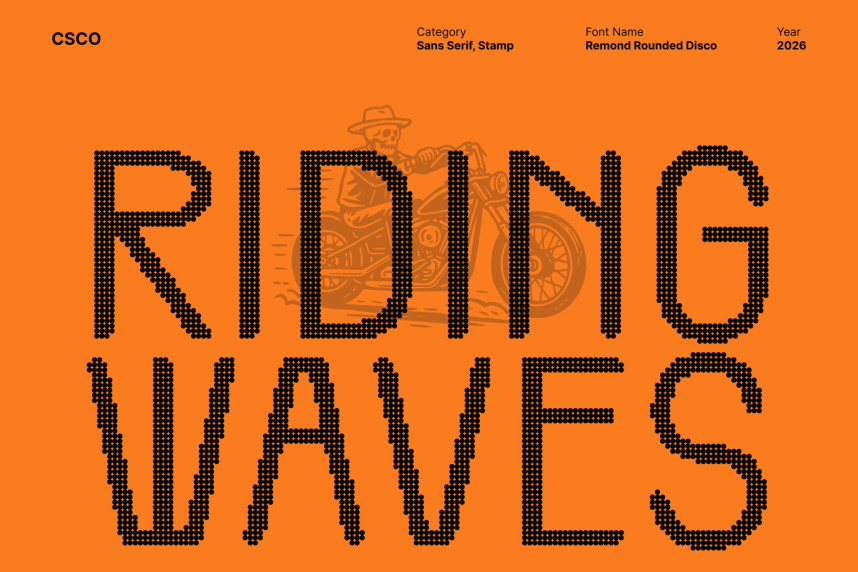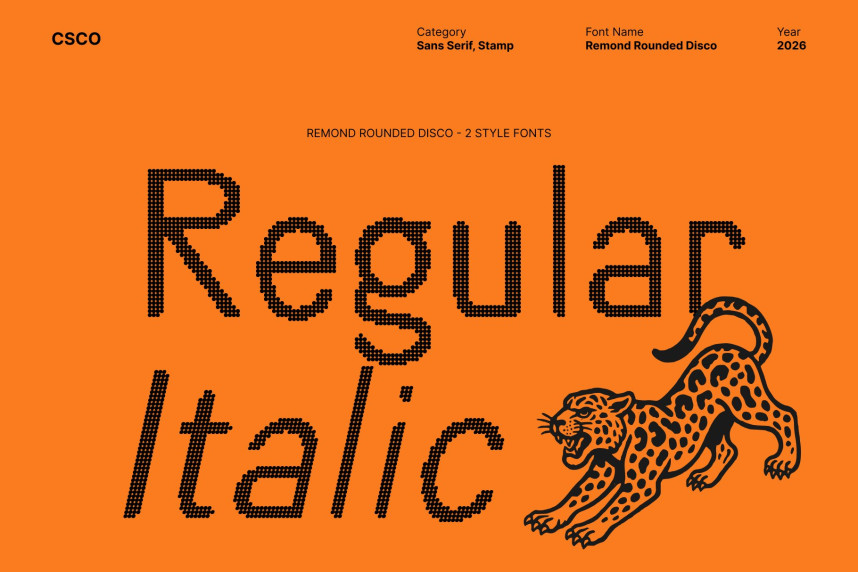
Remond Rounded Disco Font
Remond Rounded Disco Font – Friendly Forms with a Subtle Groove Soft Rounded Sans Serif with Disco Spirit. This is a soft, condensed sans serif typeface designed to feel welcoming and easygoing, with a subtle disco-inspired personality. Its rounded structure and compact proportions create a cheerful, modern look that feels both approachable and visually engaging.